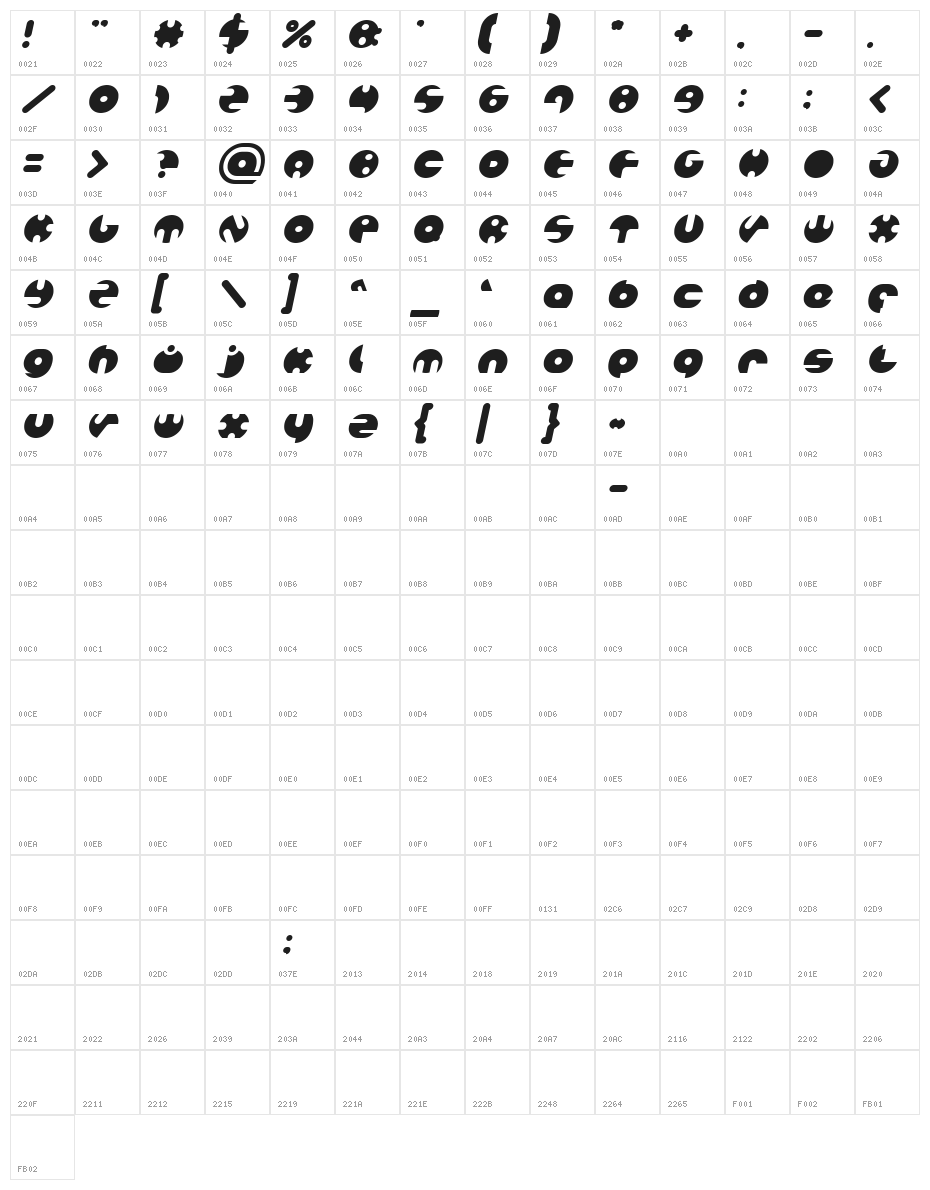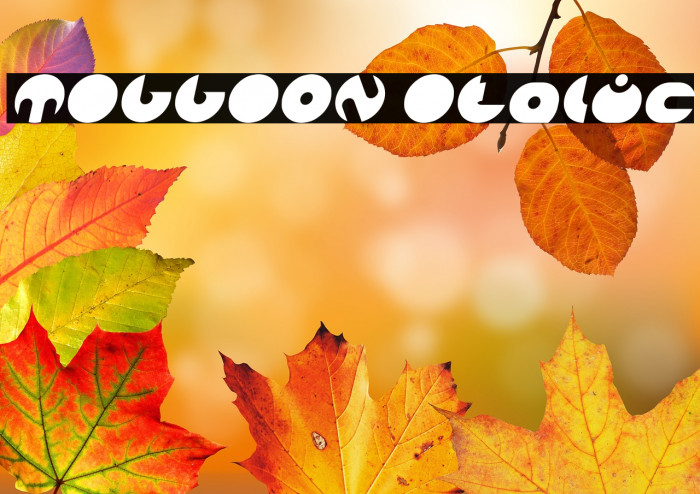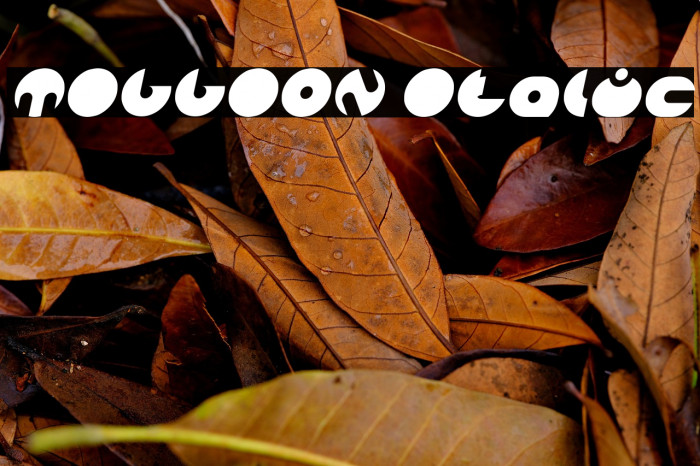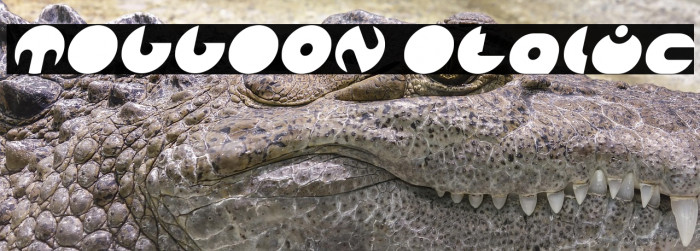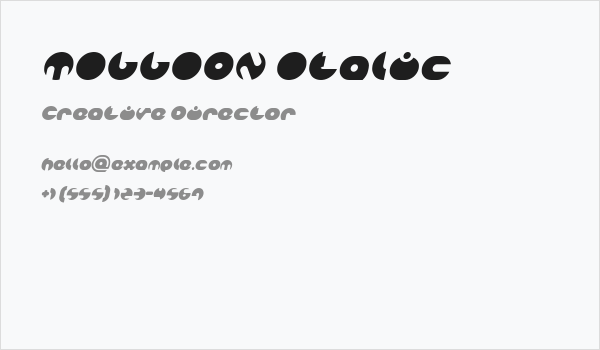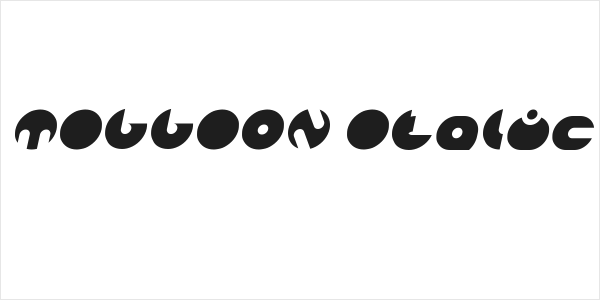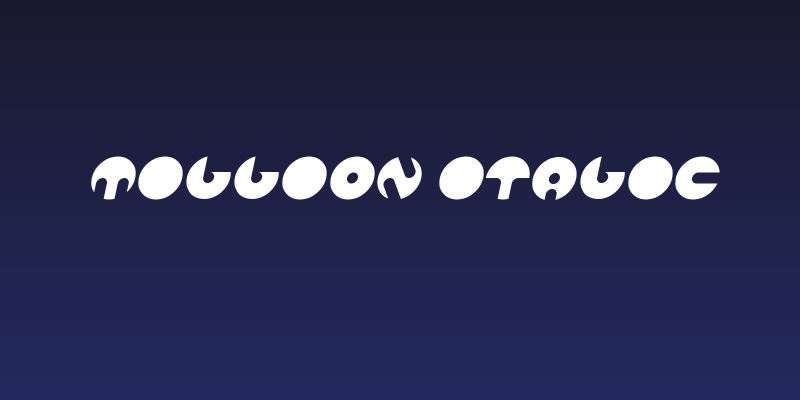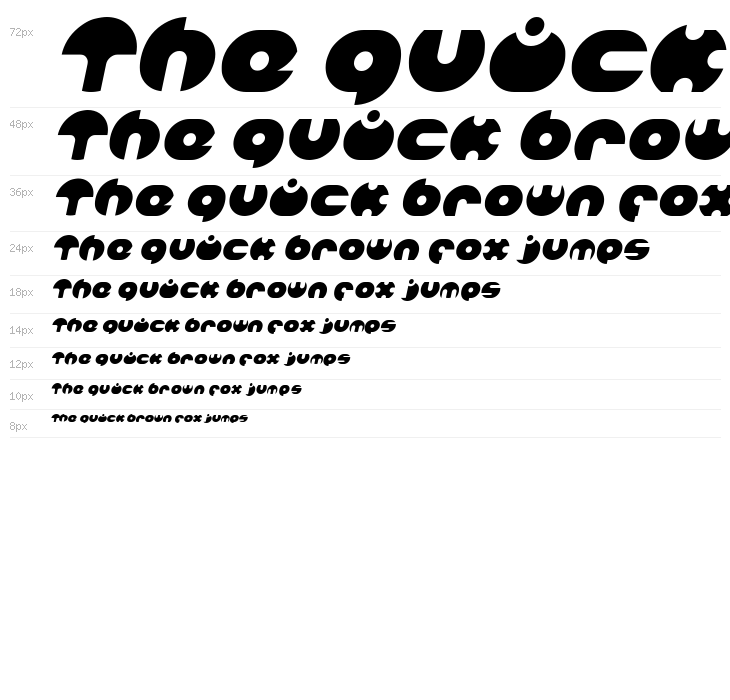
MILLION Italic Font
MILLION Italic Description
This font features a bold and playful design with a distinctly modern and decorative style. The characters are rounded and have a unique, almost futuristic appearance, with some letters incorporating circular cutouts or exaggerated curves. The overall look is eye-catching and dynamic, making it suitable for creative and unconventional projects. The boldness of the font ensures high visibility, while the unique shapes add a touch of whimsy and creativity. The font maintains a consistent weight throughout, with medium contrast in stroke thickness, contributing to its bold and impactful presence.
| Proposed Projects | Ideal for use in branding, posters, album covers, and any project requiring a bold, creative touch. |